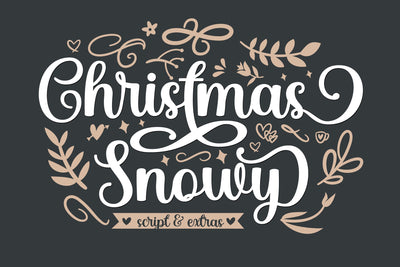
Christmas Snowy - Elegant and Flowing Handwritten Font
Christmas Snowy is a delicate, elegant and flowing handwritten font. It has beautiful and well balanced characters and as a result, it matches a wide pool of designs. Add it to your most creative ideas and notice how it makes them come alive!